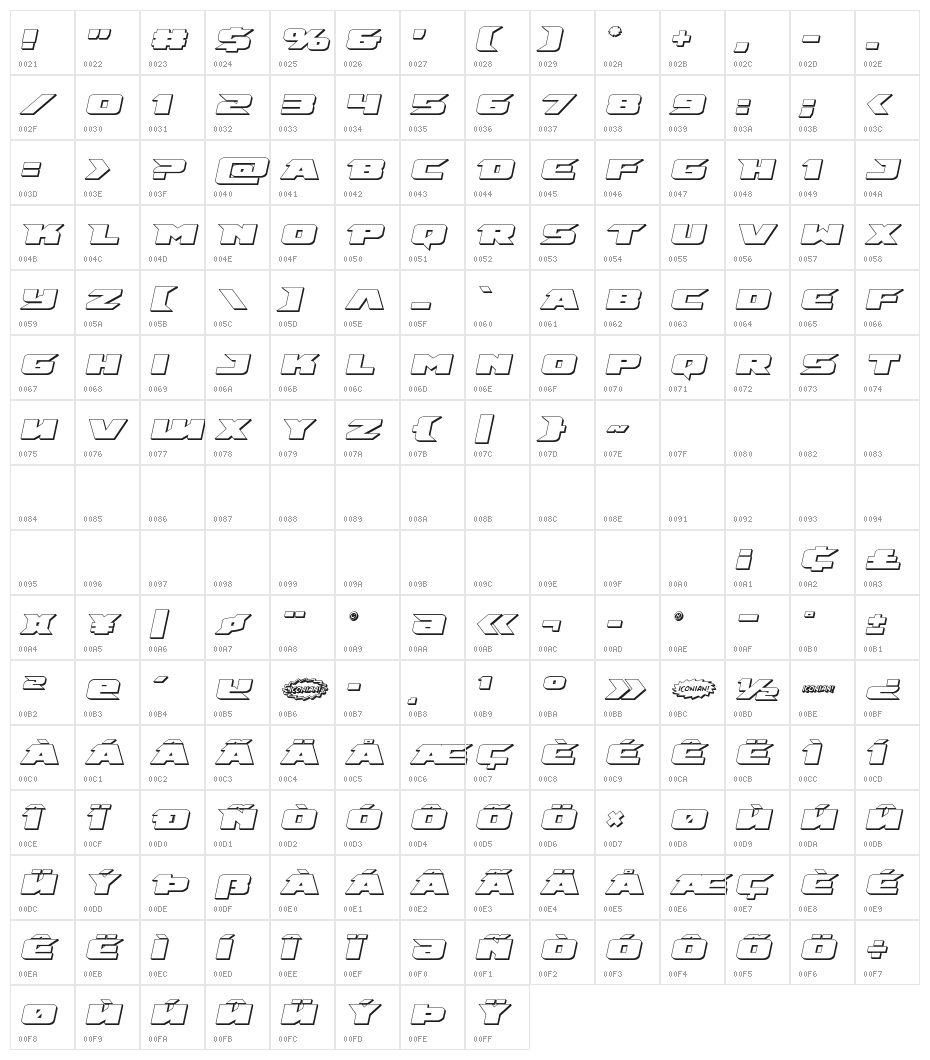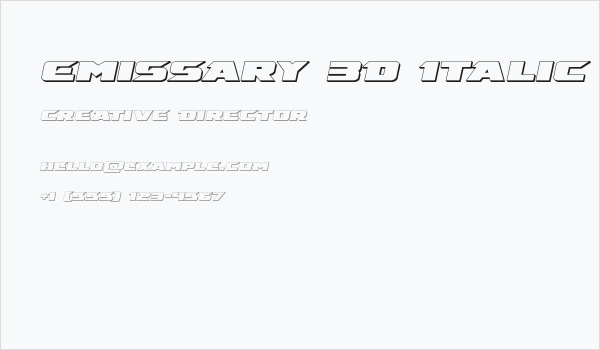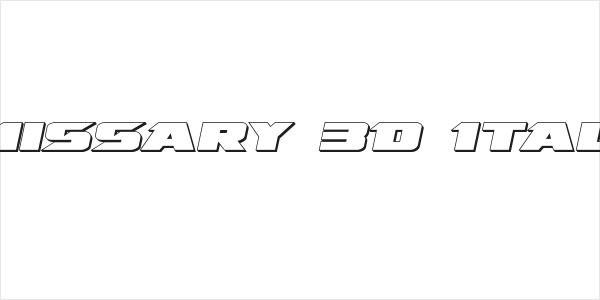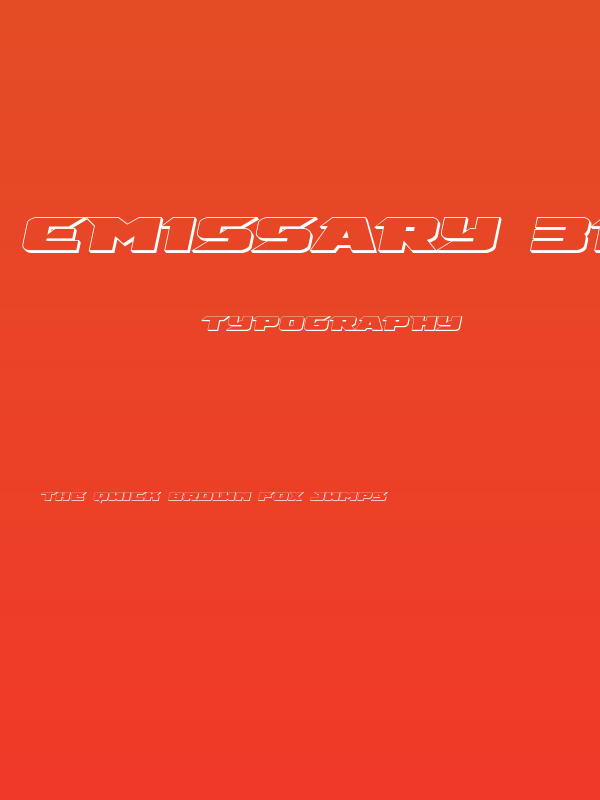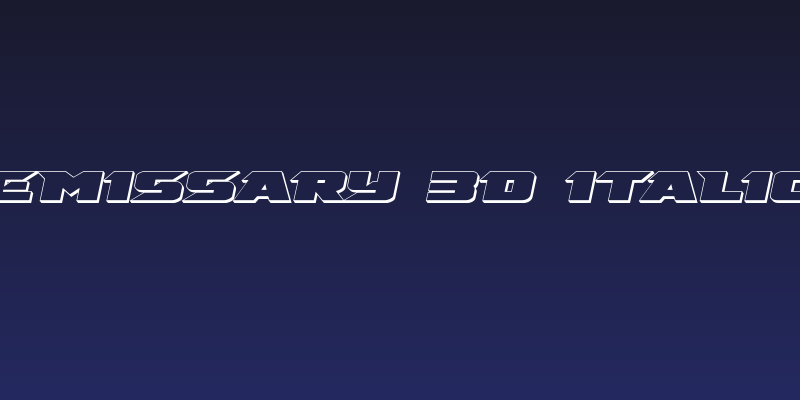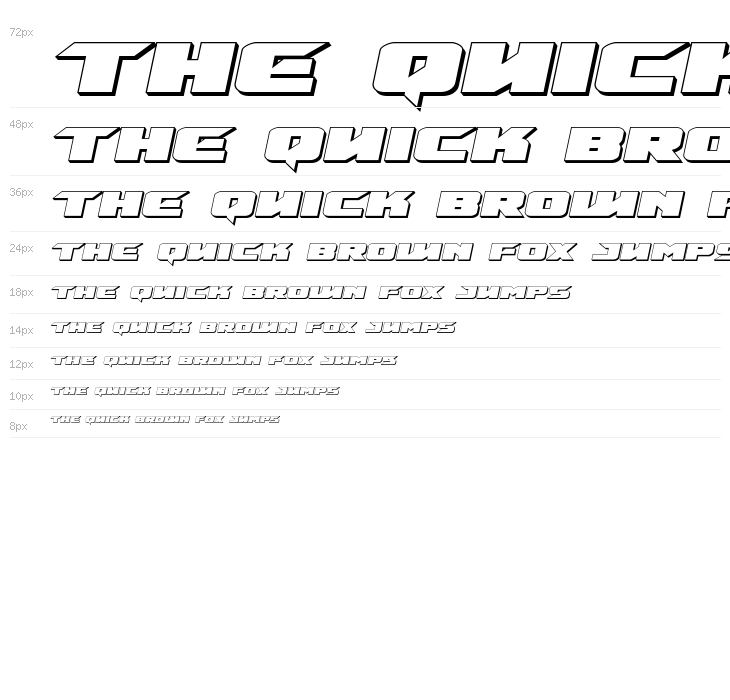
Emissary 3D Italic Font
Emissary 3D Italic Description
This font features a bold, three-dimensional design with a futuristic and dynamic appearance. The characters are italicized, giving them a sense of motion and energy. Each letter is outlined, enhancing the 3D effect and making the font stand out. The angular and geometric shapes contribute to its modern and edgy look, suitable for projects that require a strong visual impact. The font maintains consistent thickness throughout, with moderate spacing between characters, ensuring readability while preserving its unique style.
| Proposed Projects | Ideal for video game titles, sci-fi movie posters, tech branding, and sports team logos. |